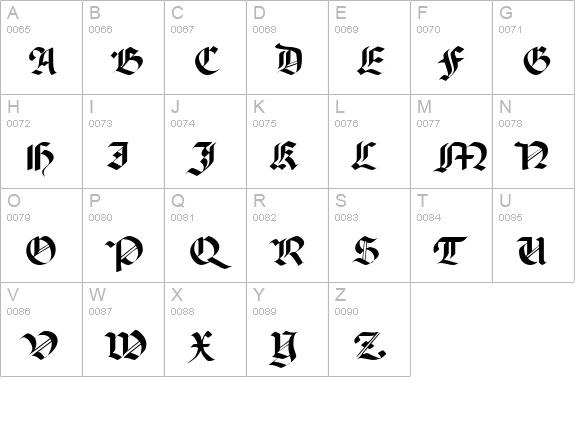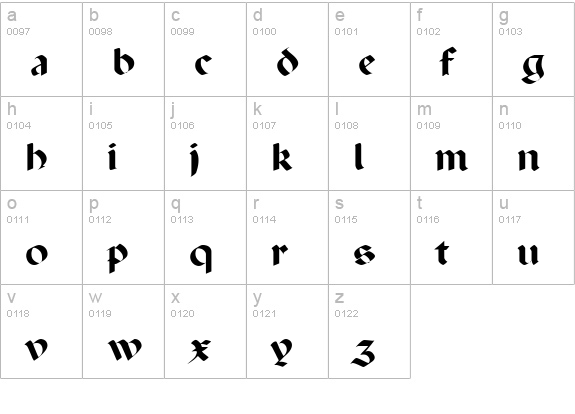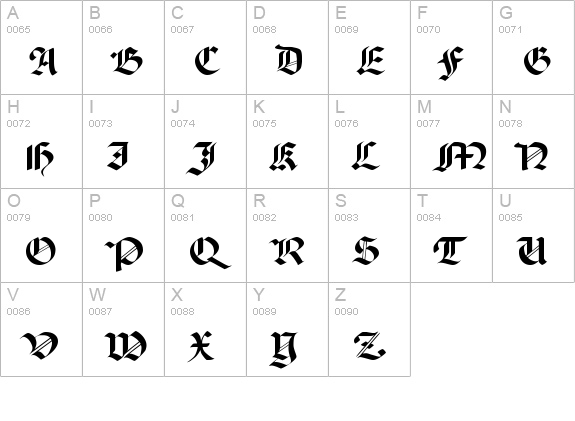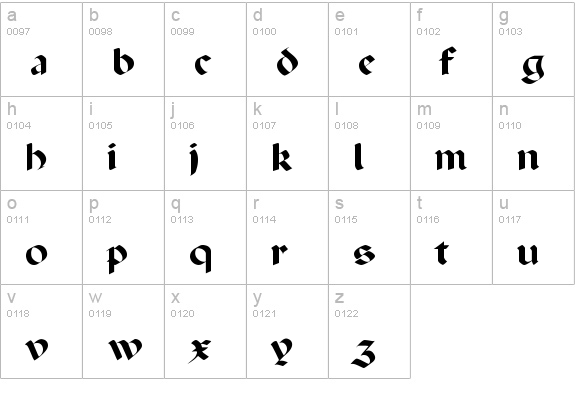
Percival Regular Font Details
Percival Regular is the standard, neutral variant in the Percival typeface family \xE2\x80\x94 well suited to general body text, paragraphs, and standard typographic work.
Percival Regular font is a versatile and elegant typeface that exudes a sense of classic sophistication. With its clean lines and balanced proportions, this font is perfect for a wide range of design projects, from elegant logos to stylish headlines. The Percival Regular font features a timeless aesthetic, making it suitable for both traditional and contemporary designs. Its legibility and clarity ensure that your message will be easily conveyed to your audience, while its subtle details and unique letterforms add a touch of personality and charm. One of the standout features of Percival Regular font is that it is available for free. Yes, you read that right! This high-quality font is freely available to download at FontsMarket.com. Whether you're a professional designer or a hobbyist, this generous offer allows you to enhance your creations without breaking the bank. With Percival Regular font, you can elevate your designs to the next level. Its versatility and timeless appeal make it a superb choice for branding, packaging, advertising, and much more. Download this exquisite font today and let your creativity flow freely. Visit FontsMarket.com now to get your hands on the Percival Regular font and unlock a world of design possibilities.